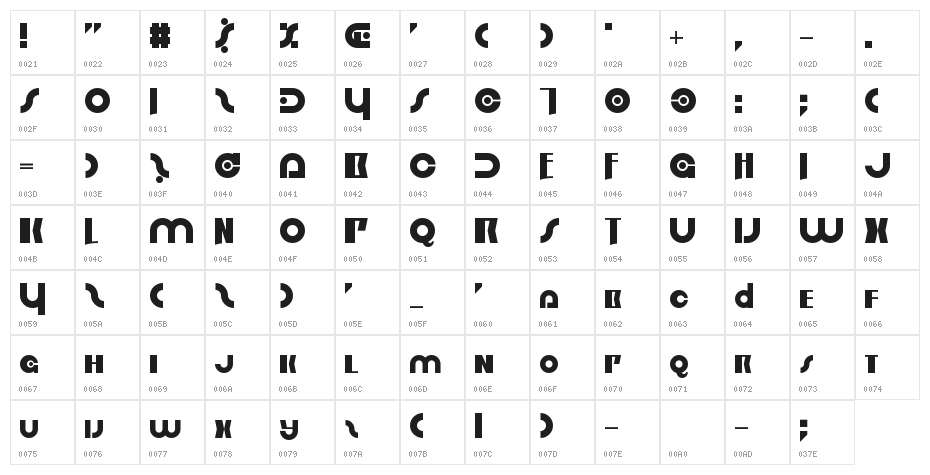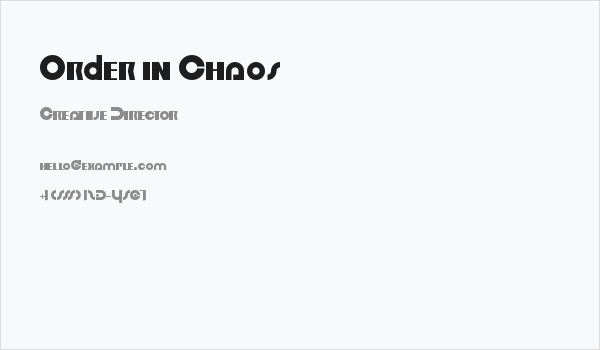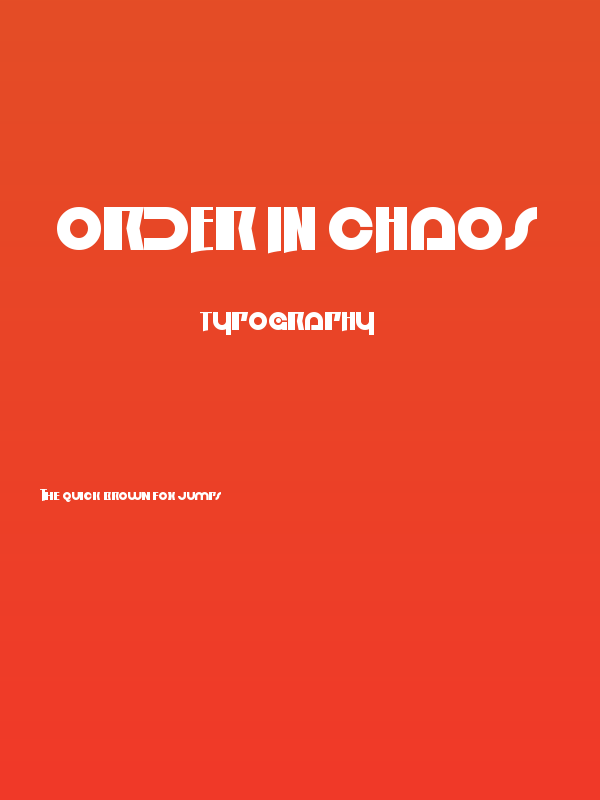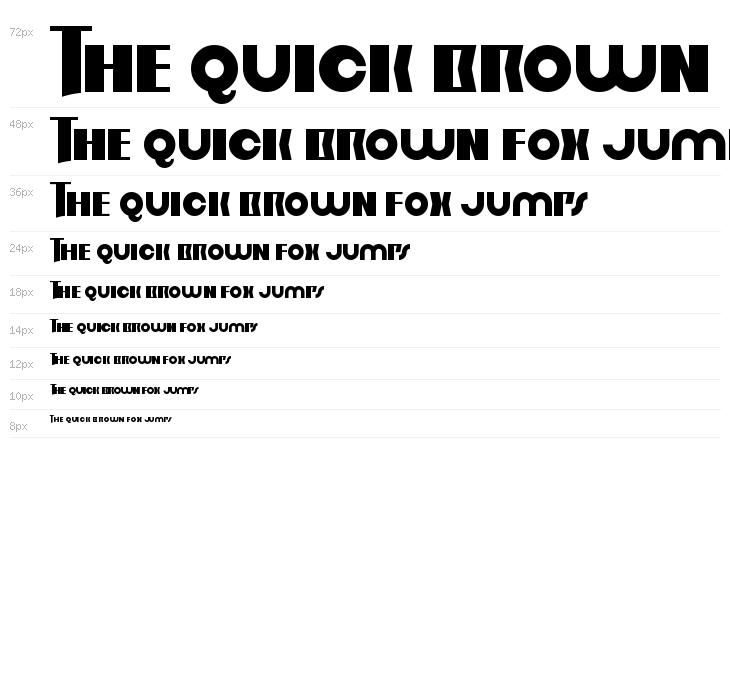
Order in Chaos Font
Order in Chaos Description
This font features a bold and geometric design with a futuristic flair. Each character is crafted with a combination of sharp angles and smooth curves, creating a dynamic and eye-catching appearance. The uppercase letters are particularly striking, with unique cutouts and shapes that give them a distinct look. The lowercase letters maintain the same boldness, ensuring consistency across the typeface. Numbers and special characters are equally stylized, making them suitable for a variety of creative applications. The overall design is modern and innovative, making it perfect for projects that require a strong visual impact.